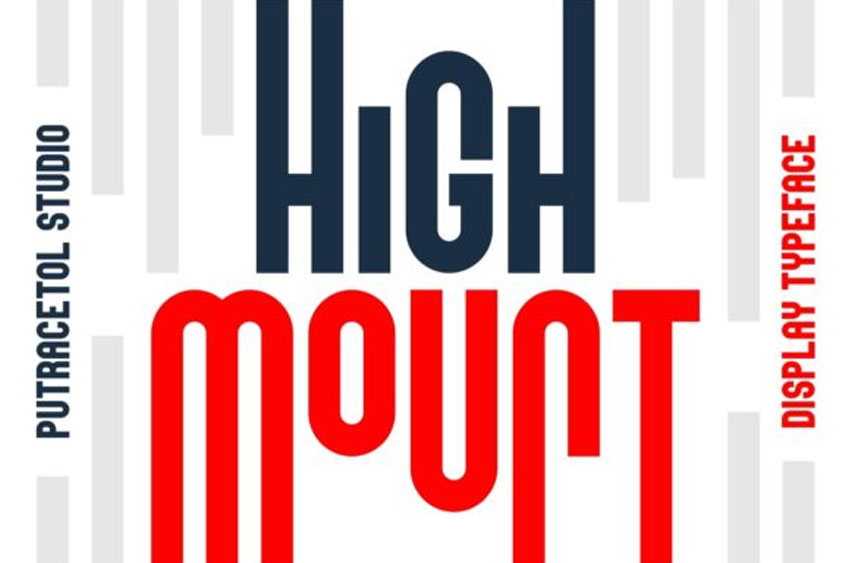
High Mount Font is a striking display font. It has three heights variations which can be used to add an unique touch to your designs..
It can be used for logos, t-shirts, quotes, headers, titles, social media posts, labels, and every other design which needs an unique touch.